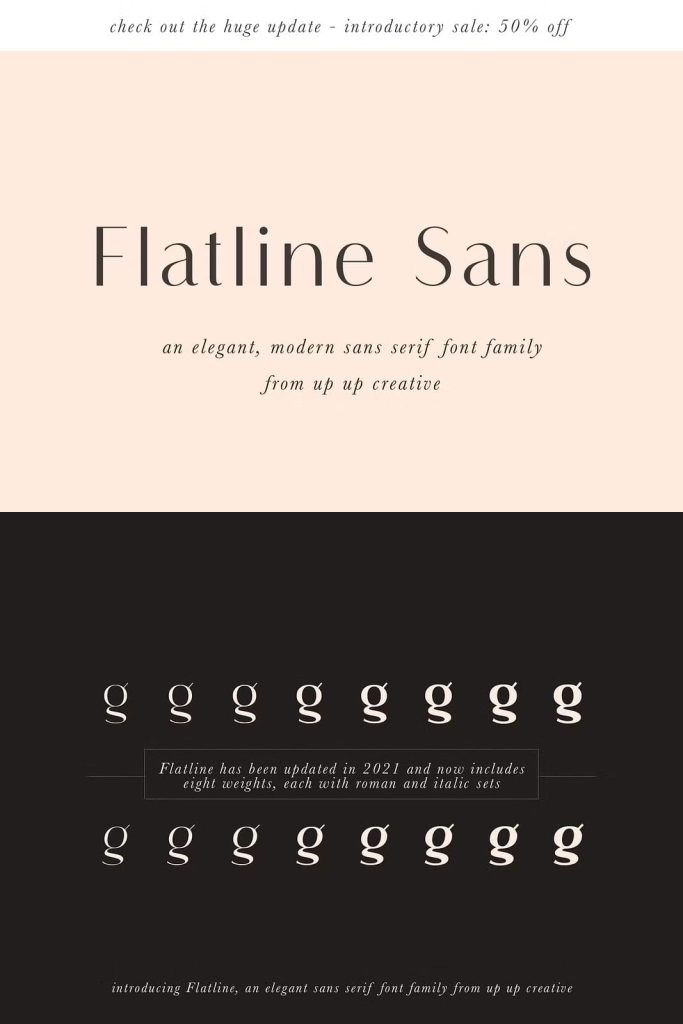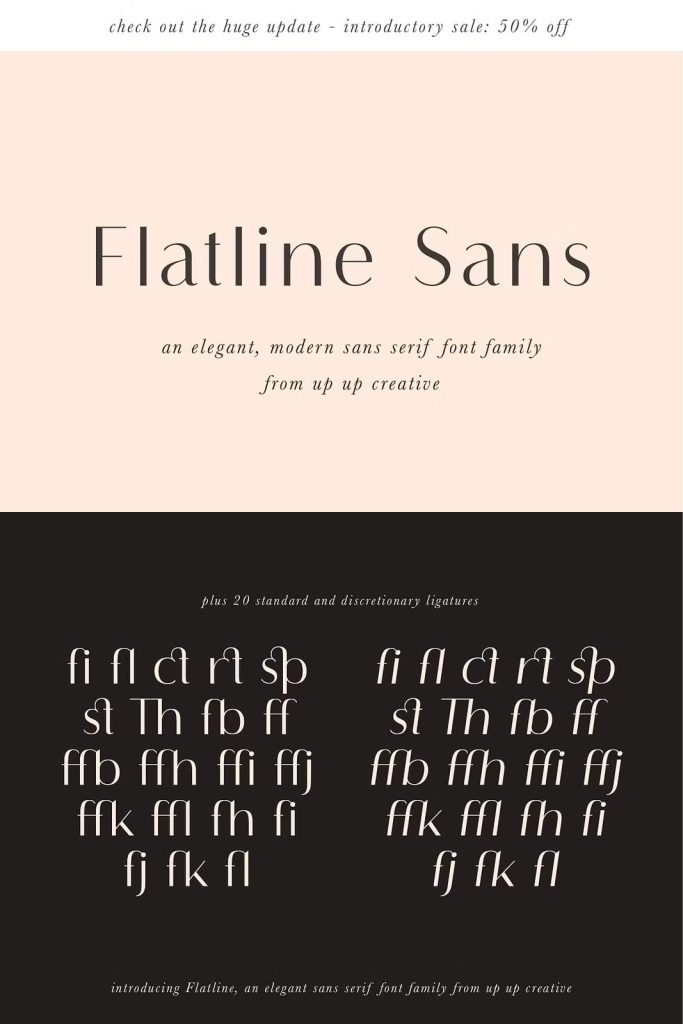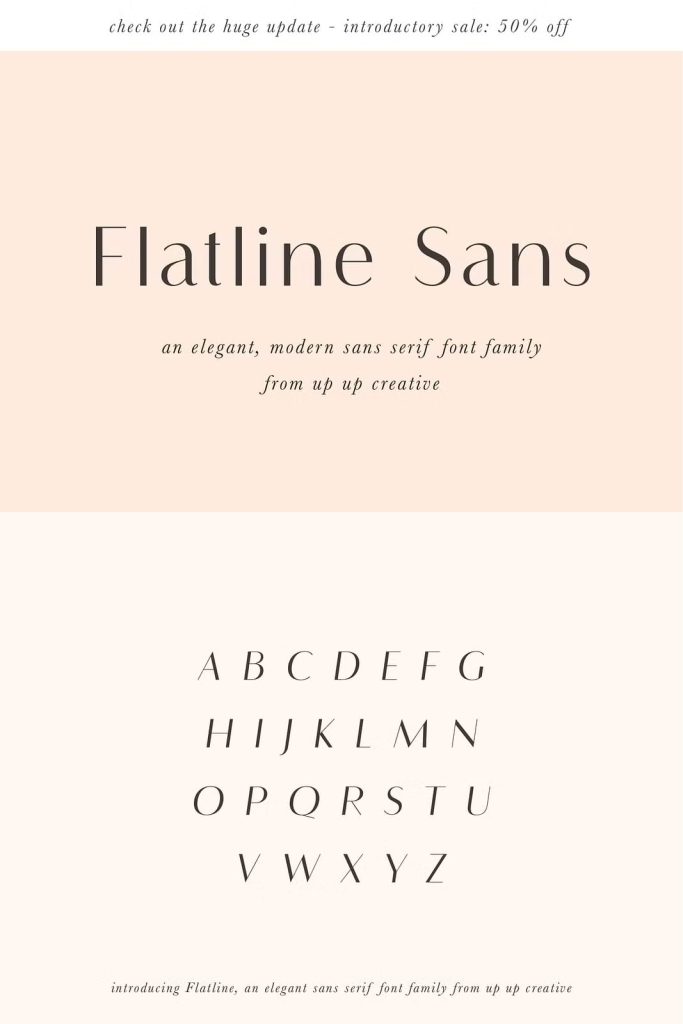
Flatline is one of our favorite and most popular fonts, and in 2021, we’ve made a HUGE update (which includes five new weights). That means there are EIGHT weights total, each in regular and italic sets, giving you sixteen fonts with this complete family.
Flatline is an elegant, modern sans serif font family. Meticulously drawn with high contrast between thick and thin strokes with the goal of making even the simplest sans serif letters look sensual, elegant, and warm. It’s perfect for headlines, editorial uses, and advertising projects. Makes beautiful luxe logos and wedding invitations, too.